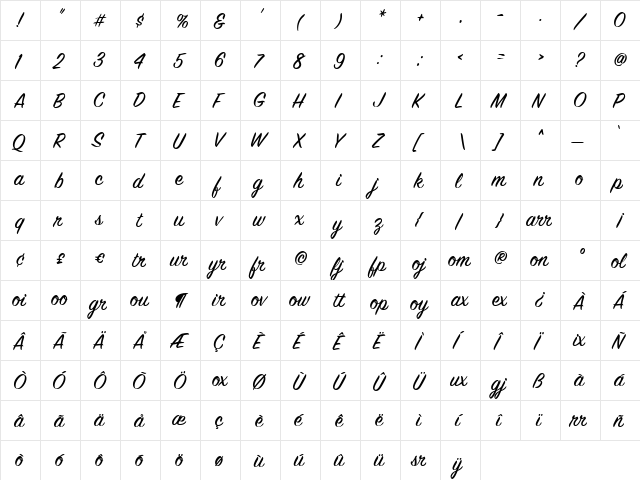
SignPainter HouseScript Regular
| Foundry | House Industries |
| Designer | House Industries |
Design Context for SignPainter HouseScript Typeface
SignPainter HouseScript brings a calligraphic fluidity to the page — its connecting strokes and expressive curves give it an unmistakably human quality.